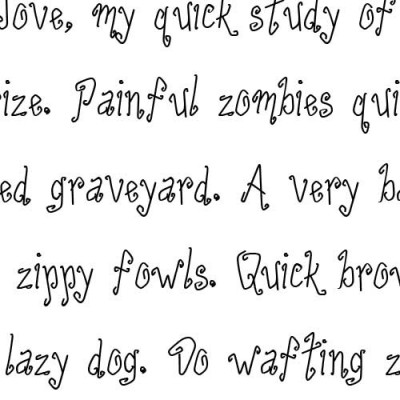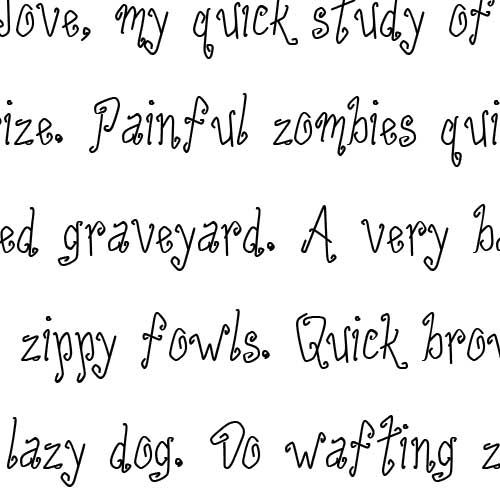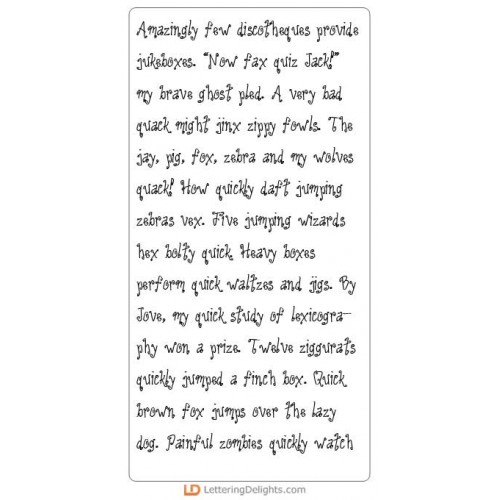
LD Teatime - Font
Whimsical, uneven, eye-catching, and fun. These are some of the words that describe "Teatime," a unique true type font. Use it for lively scrapbook journaling and paper crafting.